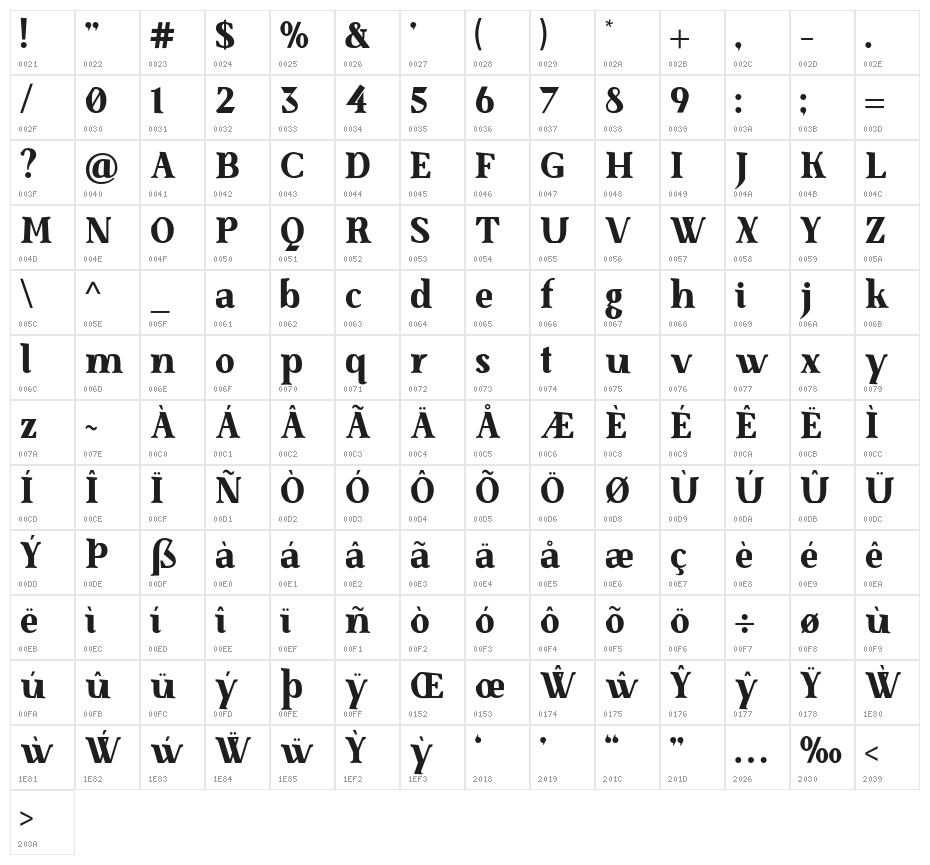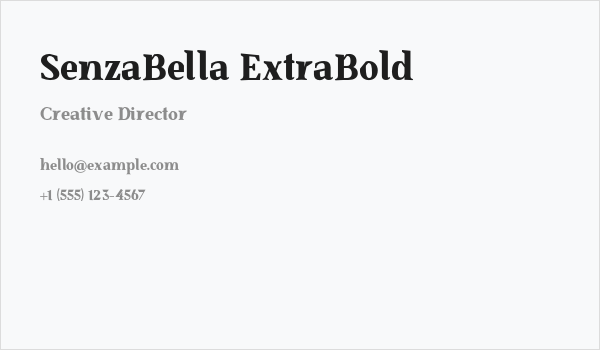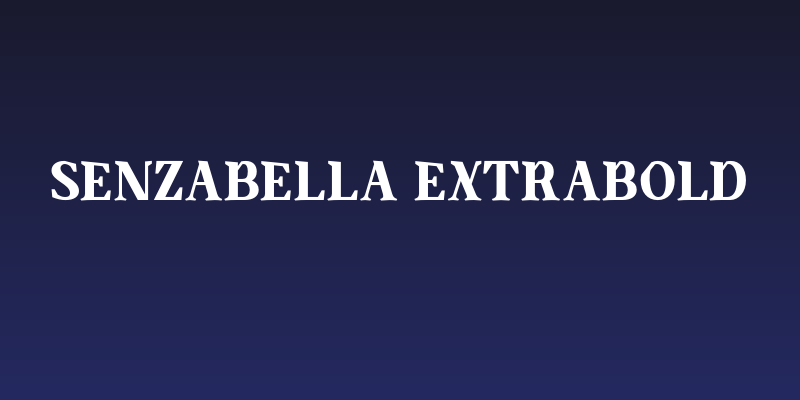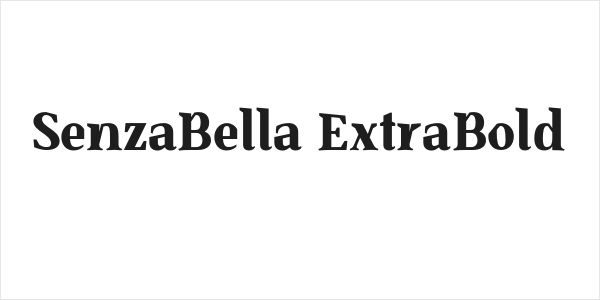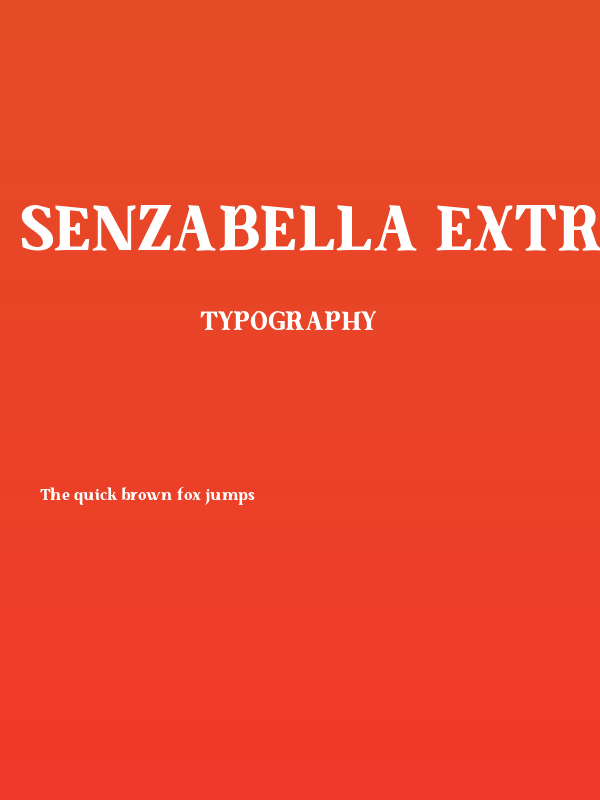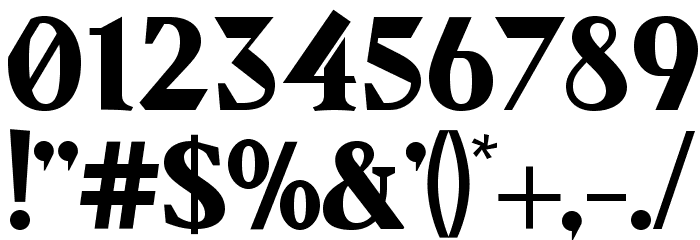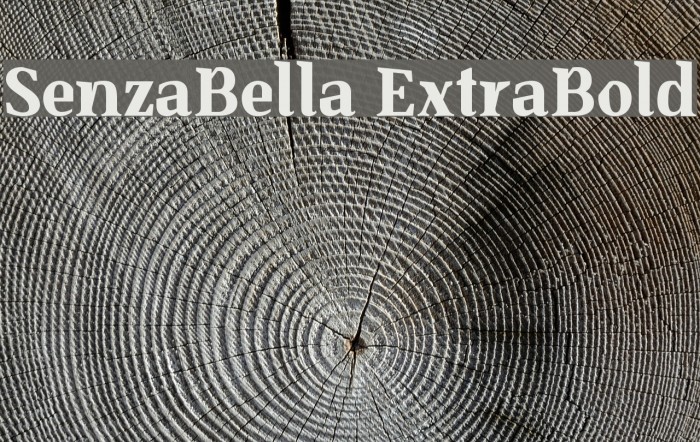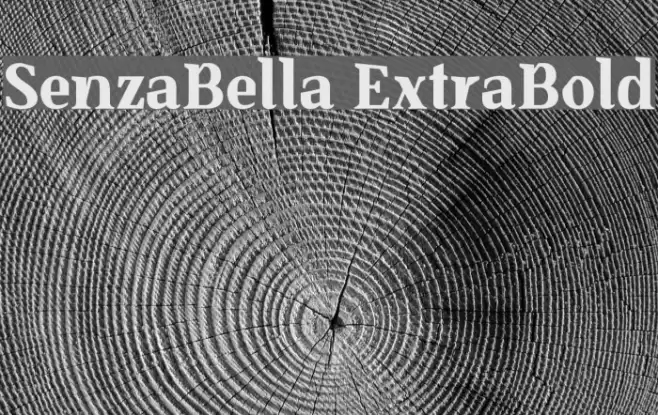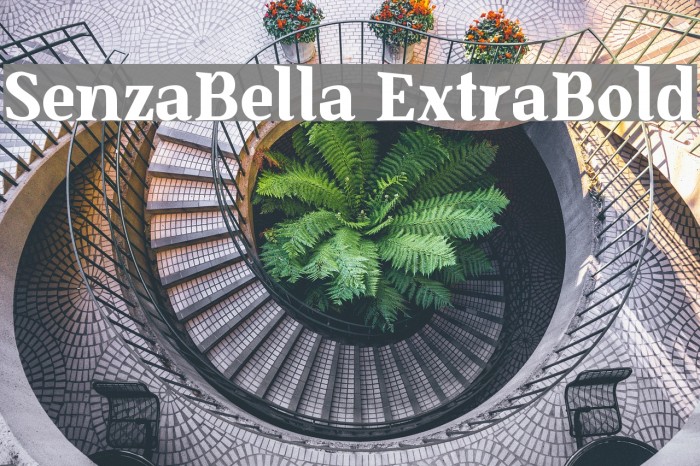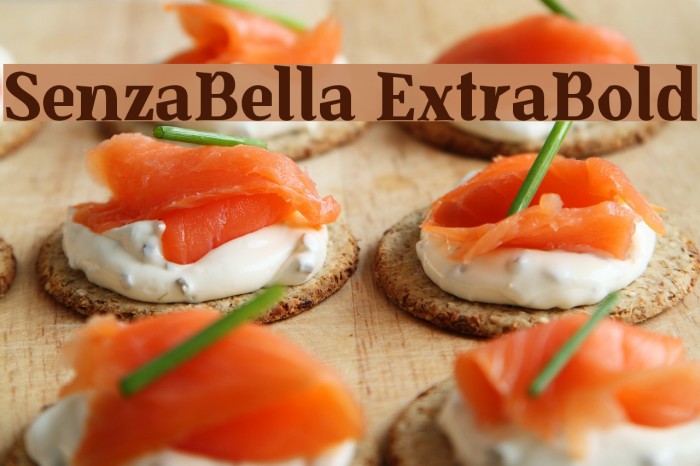
SenzaBella ExtraBold Font
SenzaBella ExtraBold Description
This font features a bold and dramatic serif style with thick strokes and high contrast between thick and thin lines. The characters have a strong presence, making them ideal for attention-grabbing headlines and titles. The serifs are pronounced, adding a classic touch to the overall modern design. The uppercase letters are particularly striking, with a slightly condensed appearance that enhances their boldness. The lowercase letters maintain a consistent style, ensuring readability while retaining the font's distinctive character. The numerals are equally bold, matching the letterforms in weight and style. Special characters are well-integrated, providing a comprehensive set for various design needs.
| Proposed Projects | Ideal for headlines, posters, branding, and editorial design where a strong visual impact is desired. |